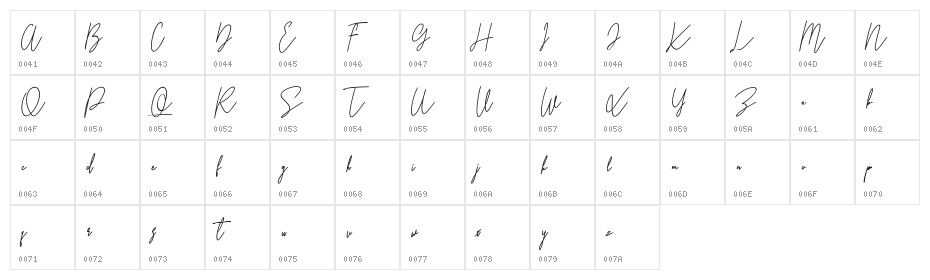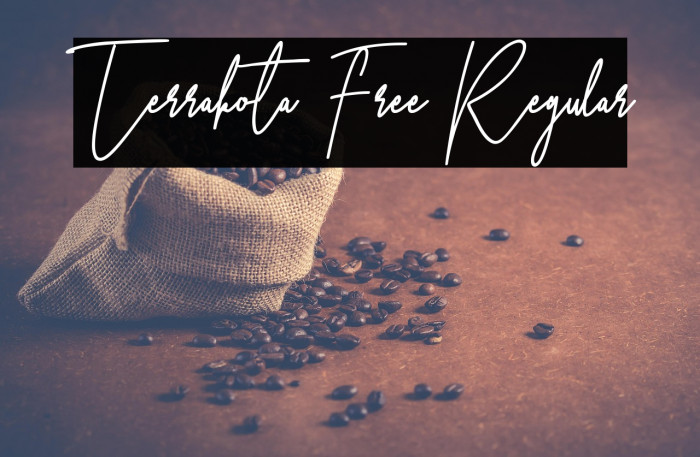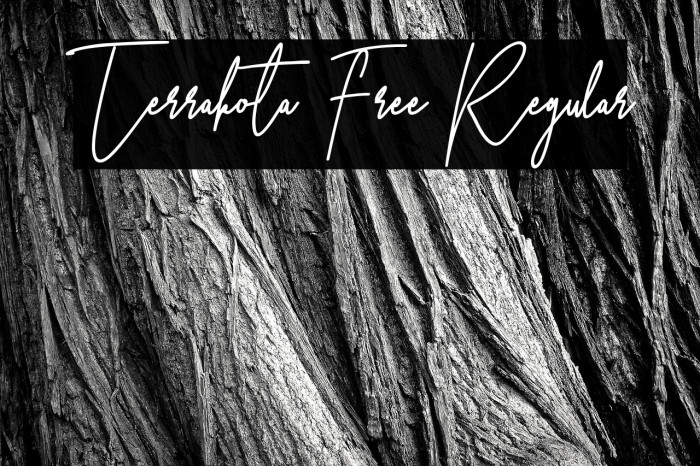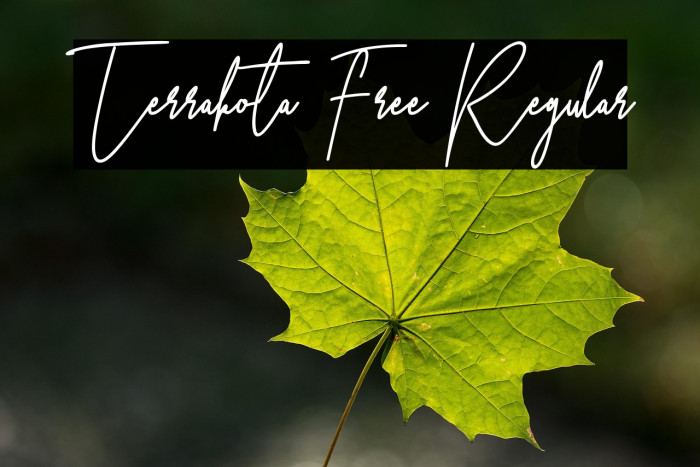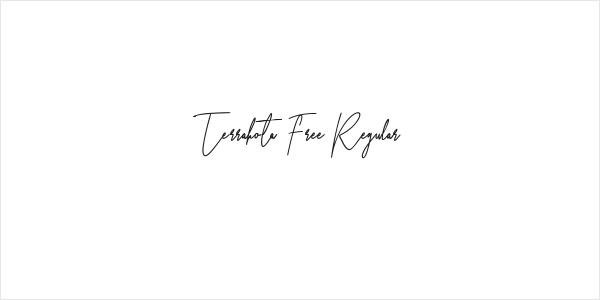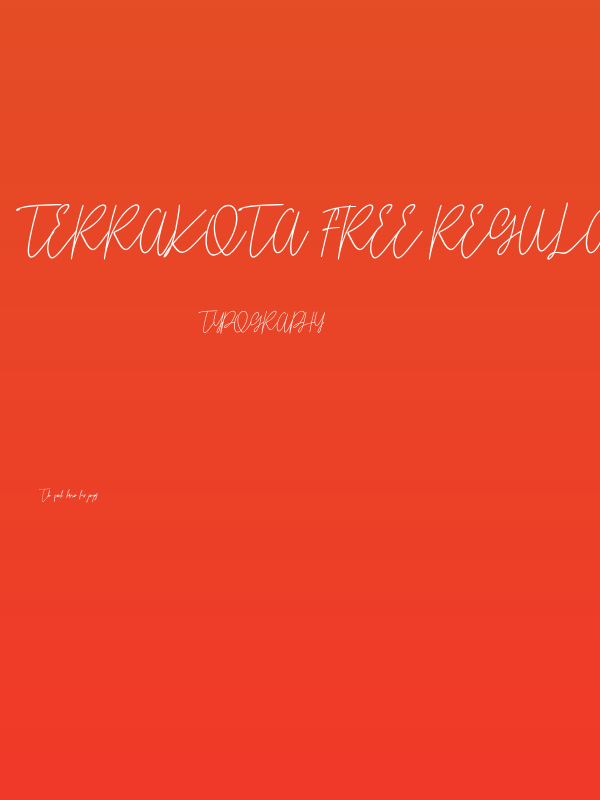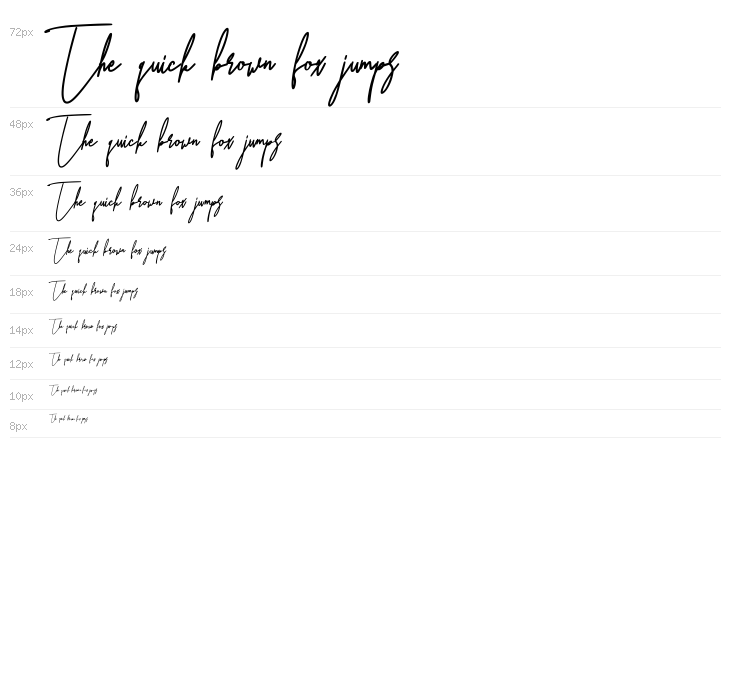
Terrakota Free Regular Font
Terrakota Free Regular Description
This font features an elegant, flowing script style that mimics natural handwriting. The characters are connected with smooth, sweeping curves, giving it a fluid and dynamic appearance. The uppercase letters are bold and prominent, while the lowercase letters maintain a consistent flow, enhancing readability. The font's design is both sophisticated and casual, making it versatile for various design needs. It exudes a sense of creativity and personal touch, ideal for projects that require a humanistic and approachable feel. The strokes are consistent in width, providing a balanced and harmonious look across all characters.
| Overall Style | Elegant, Casual |
| Proposed Projects | Ideal for wedding invitations, personal branding, greeting cards, and artistic projects. |